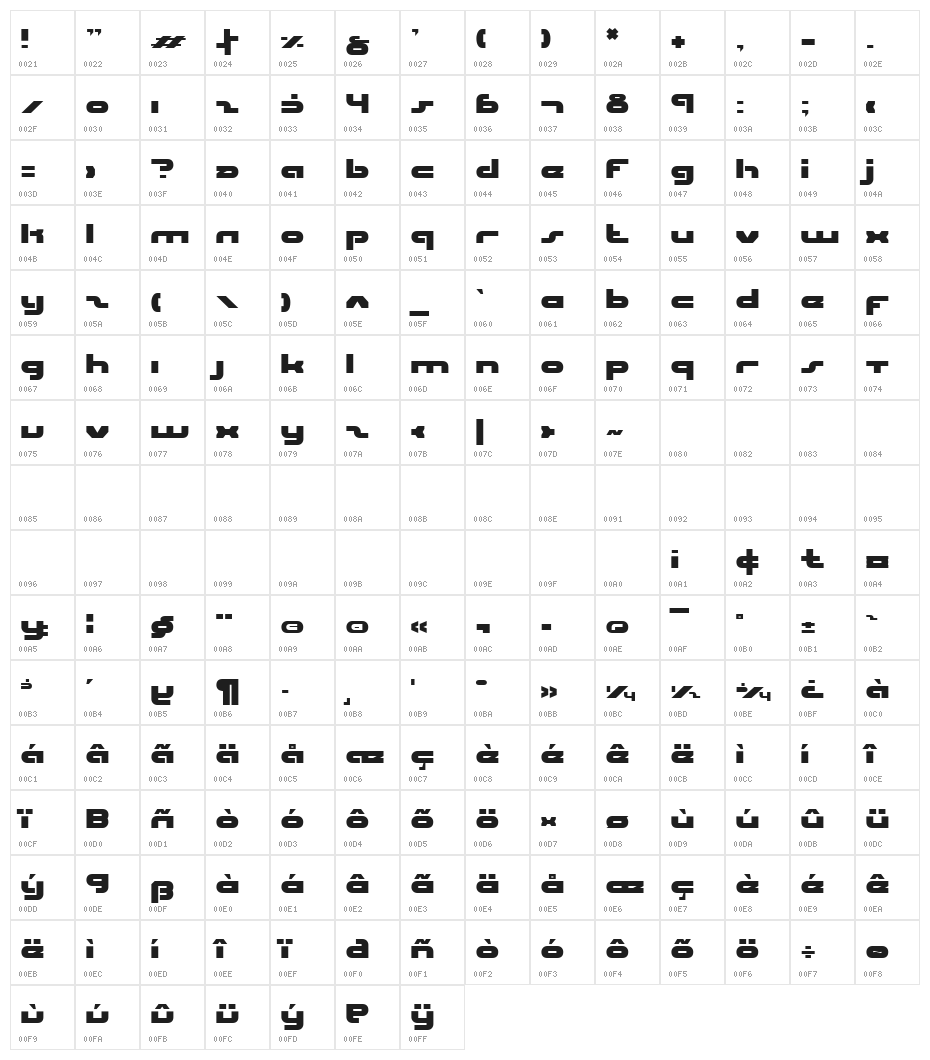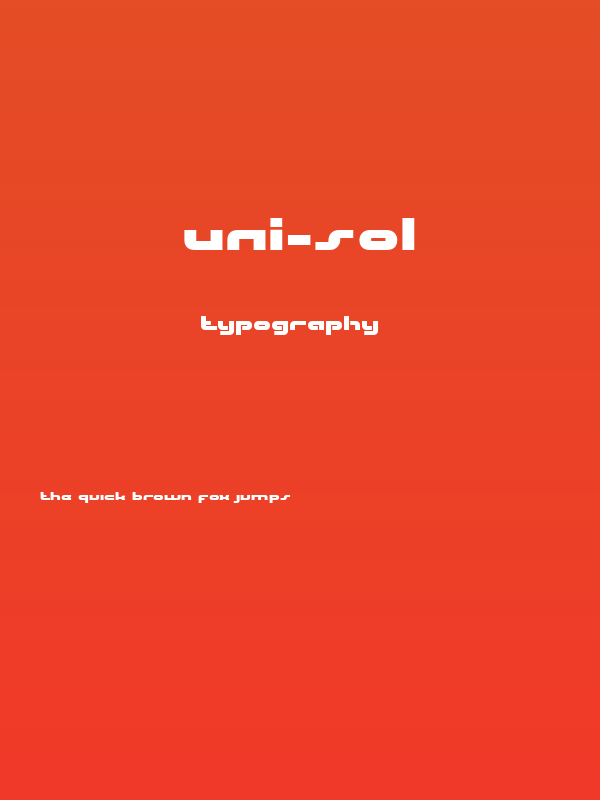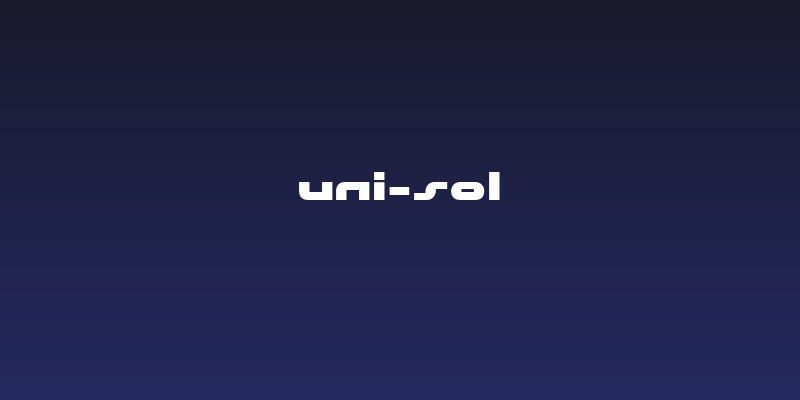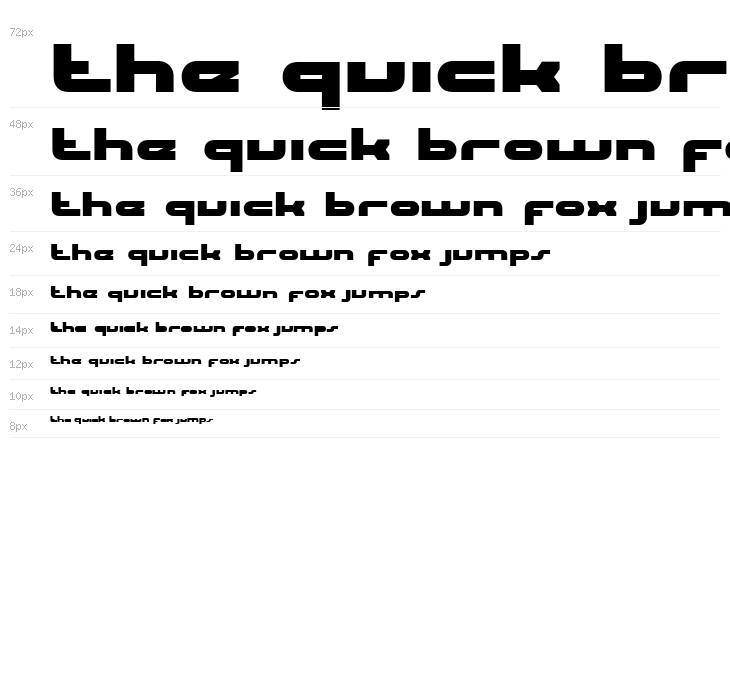
uni-sol Font
uni-sol Description
This font features a bold and futuristic design with geometric shapes and sharp angles. The characters are constructed with a uniform stroke width, giving a strong and cohesive appearance. The uppercase and lowercase letters share similar design elements, maintaining consistency across the alphabet. The numerals and special characters follow the same geometric style, making them easily recognizable and visually appealing. The overall design is modern and tech-inspired, suitable for projects that require a contemporary and edgy look.
Proposed ProjectsIdeal for technology branding, video game titles, sci-fi movie posters, and modern digital interfaces.